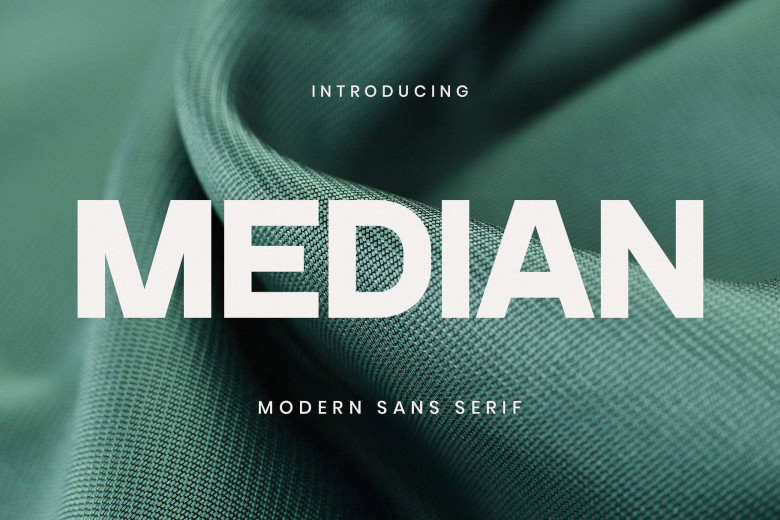
Median Font
Introducing ‘Median Modern Sans Serif’ Font. This font is a modern and classically beautiful typeface, ideal as a display for headlines in magazines, for use on logos or branding products packaging and invitations to a function or open day Median will clean lines and smooth curves give each project that little bit of extra glamorousness.
Median Modern Sans Serif Font